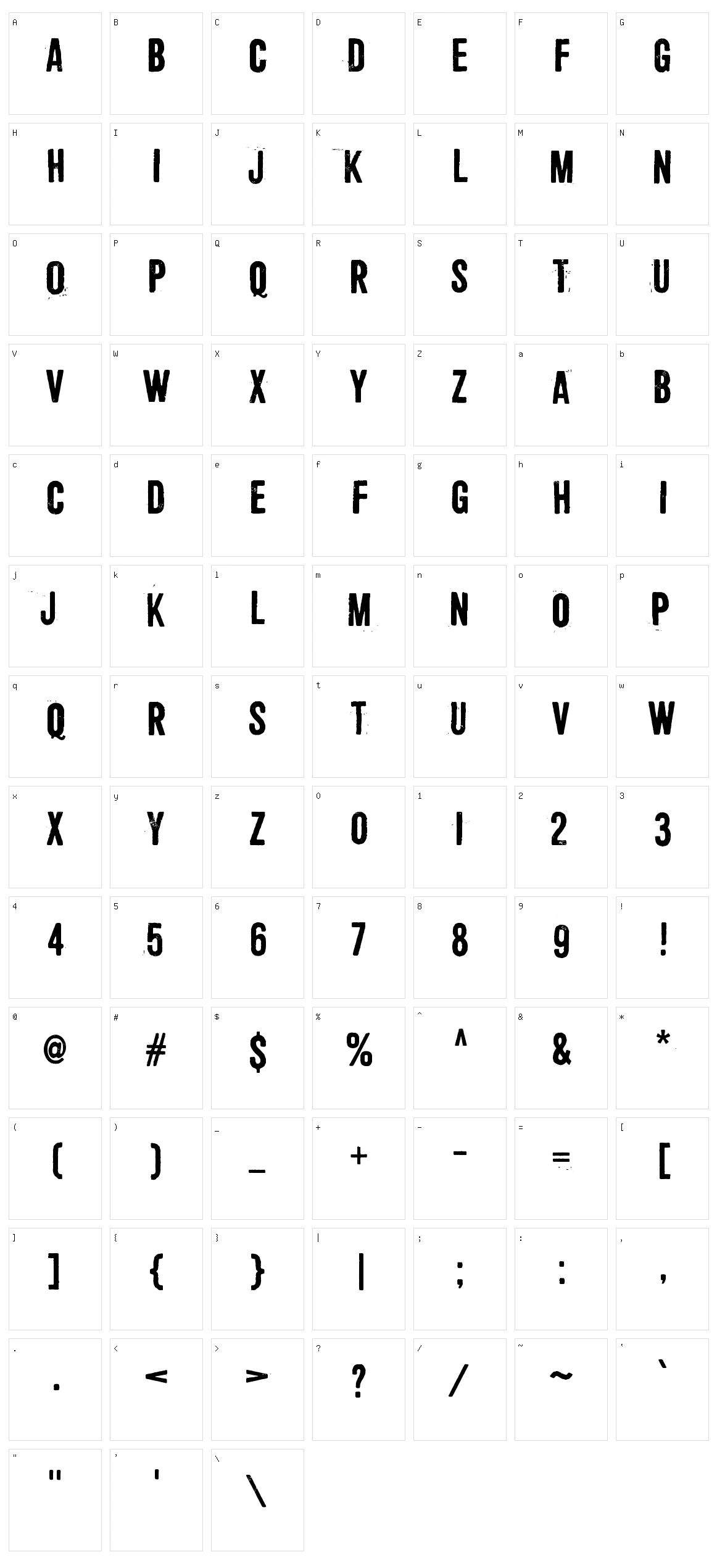
The free font Shoemaker is carefully designed by junkohanhero, showcasing a thoughtful balance of creativity and usability and falls under the Eroded font style. When you download the ZIP file, it contains only 516.57 KB of font files, making it lightweight and quick to download. Please review the license details below to understand permitted usage and distribution rights. If license information is not available, we recommend using this font for personal projects only or contacting the author directly for commercial usage permissions.